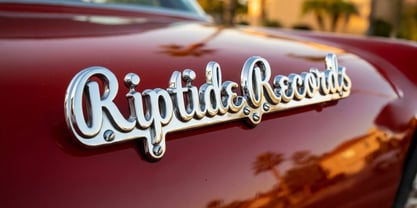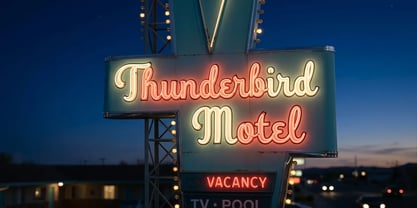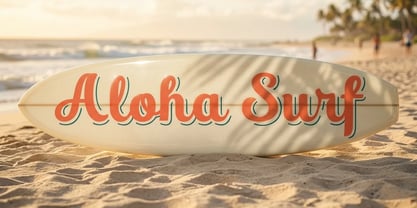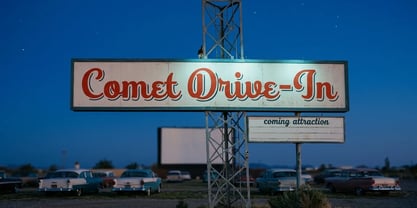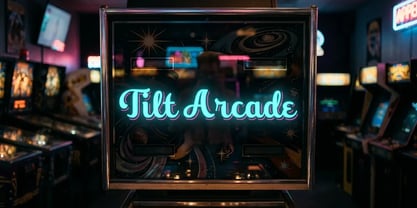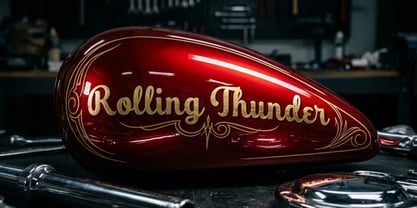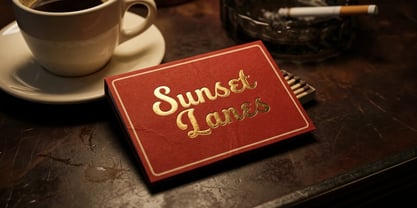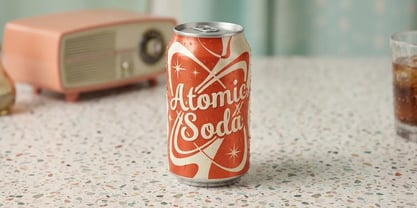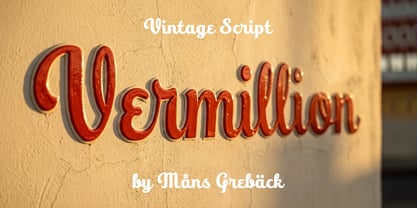
Vermillion
von Mans Greback
Die Schriftfamilie Vermillion wurde von Måns Grebäck entworfen und von Mans Greback veröffentlicht. Vermillion enthält 3 Stile und Familienpaketoptionen. Mehr über diese Familie
Vermillion is a bold retro script with a hand-painted sign-shop feel.
The letters are thick and connected, carrying the glossy sheen of fresh enamel paint. It comes in three styles that work together: Regular is the full two-tone letter, Plain is the flat face on its own, and Shadow is the drop layer behind it - set Plain over Shadow in two colours, or simply use Regular as it is.
Picture it lettered across the front window of a corner diner, catching the last of the afternoon light.
The font is built with advanced functionality and guaranteed top-notch quality, containing stylistic and contextual alternates, ligatures and more automatic and manual features; all to give you full control and customizability.
It has extensive lingual support, covering all Latin-based languages, from North Europa to South Africa, from America to South-East Asia. It contains all characters and symbols you'll ever need, including all punctuation and numbers.